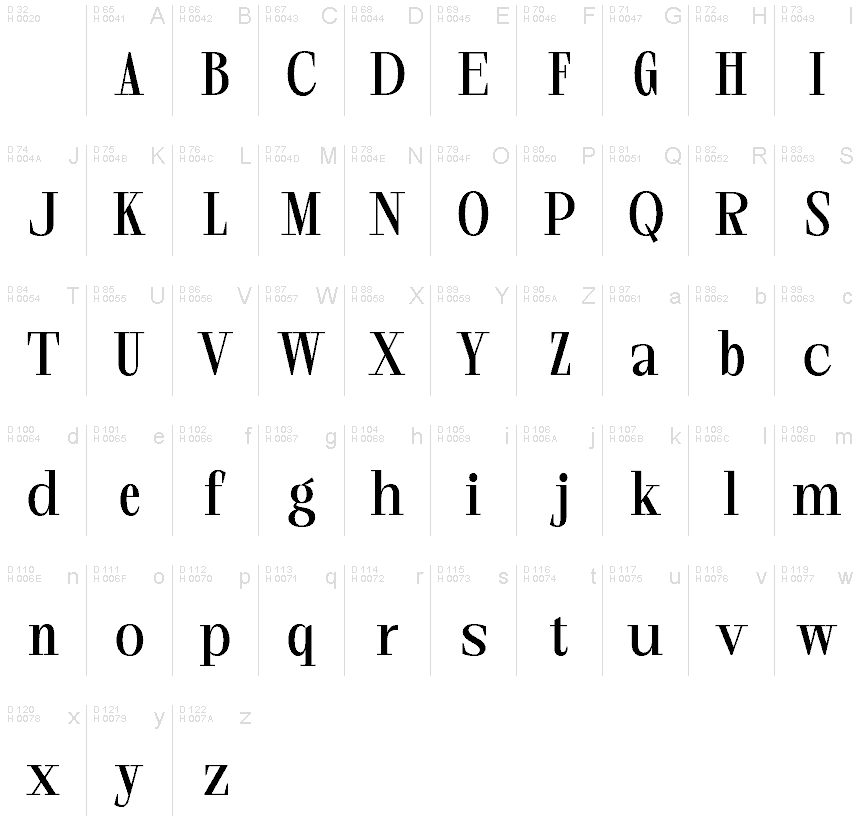
CS Galcia Regular Demo
CS Galcia font, designed by Craft Supply Co, is a vintage-inspired serif font. Its elegant and refined letters combine to produce a classic and sophisticated appearance which leaves no one indifferent. Enjoy its beauty and use it within your next personal or professional projects to make the most of what it can give in terms of attractiveness.
Dating applications, hairstyles salon promotions, business cards designs, apparel designs including branding for fashion-related businesses are probable places where CS Galcia would work well. Use this condensed free serif font also in magazine covers & layouts or as part of book cover designs (including novels).